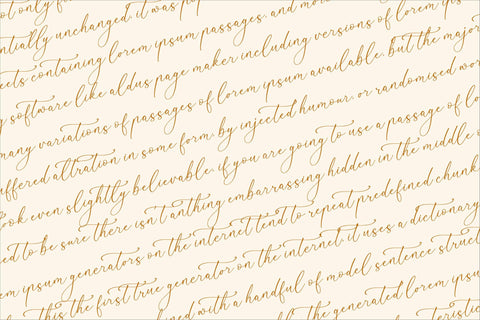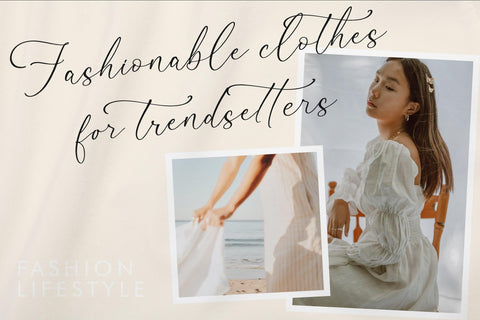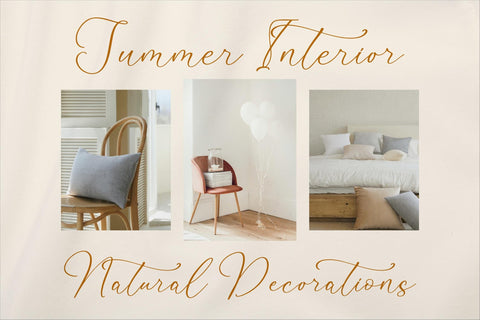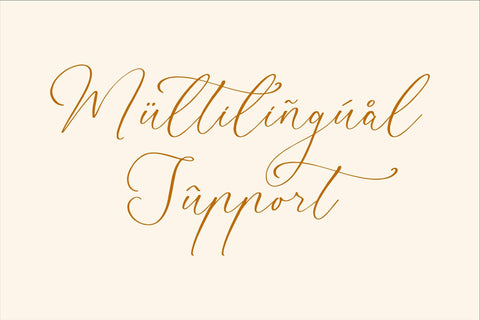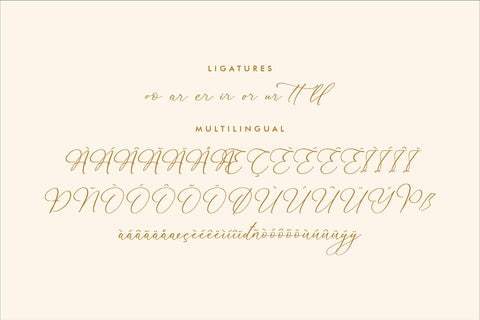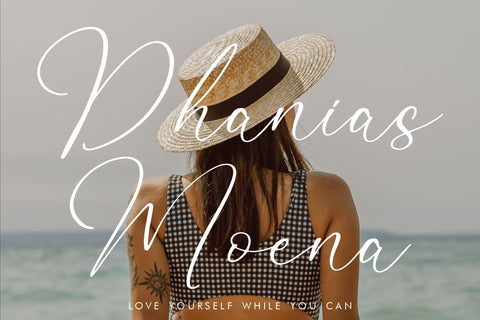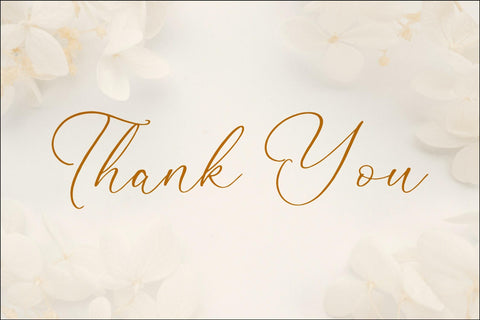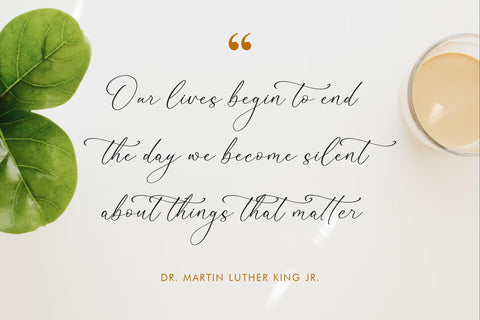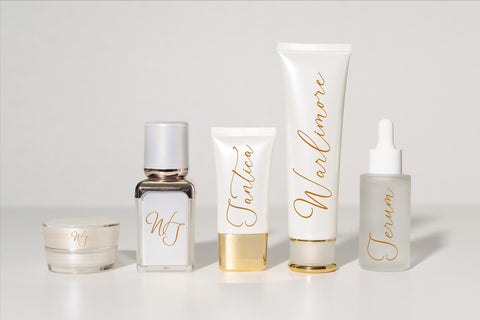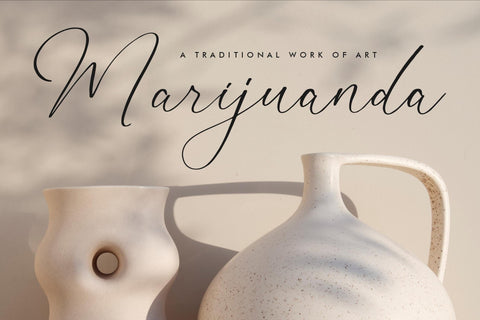
Martigale - Modern Calligraphy Font
Proudly present Martigale - Modern Calligraphy Font , created by Storytype,
A luxury script that has own unique style & modern look.